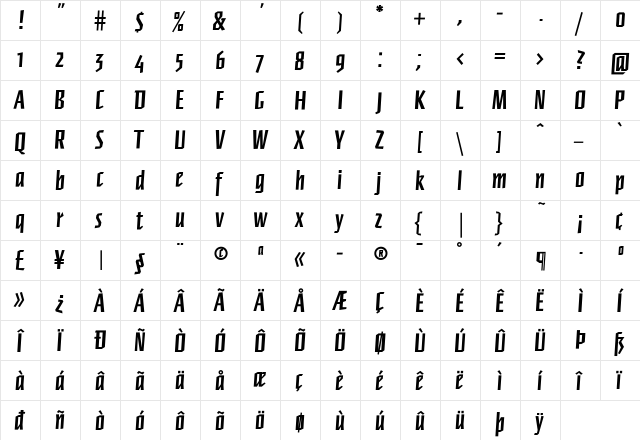
Newberlin Bold
Design Context for Newberlin Typeface
Newberlin is a composed and adaptable typeface that performs quietly and consistently across a wide range of design contexts. The heavy weight commands attention and anchors typographic hierarchies.
Pro Tip: Pair Newberlin with a font of contrasting weight or personality to build a more expressive typographic hierarchy.